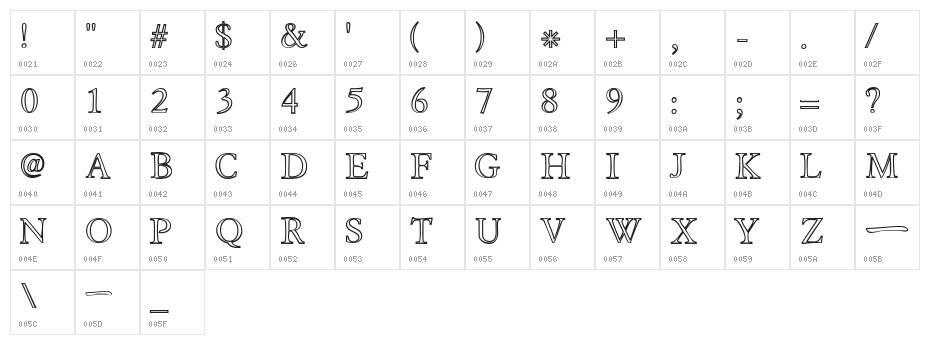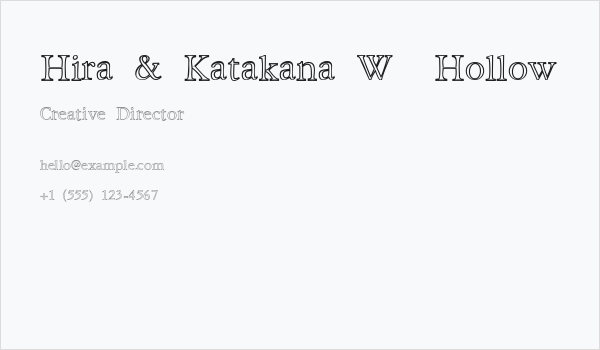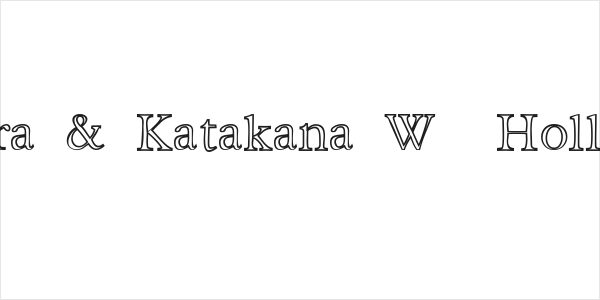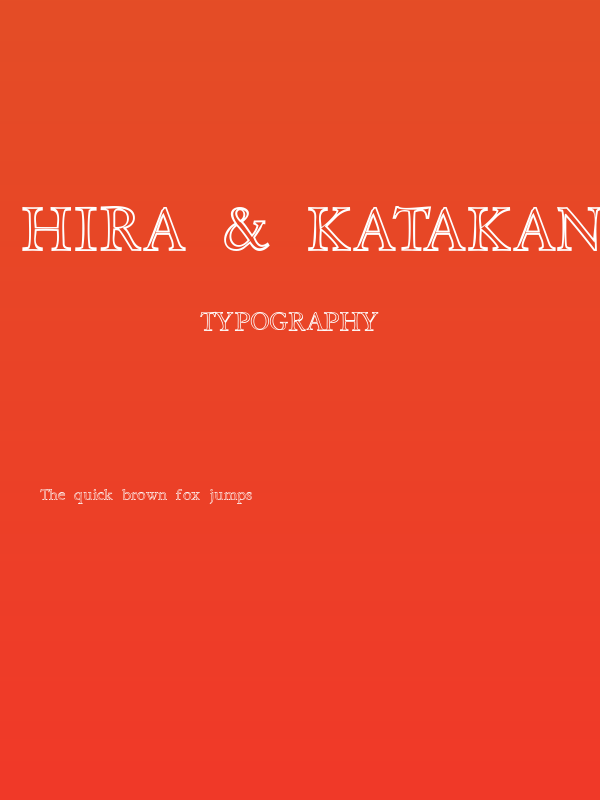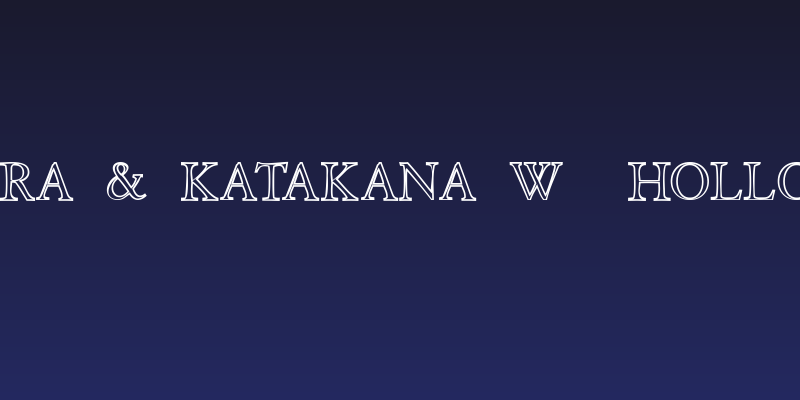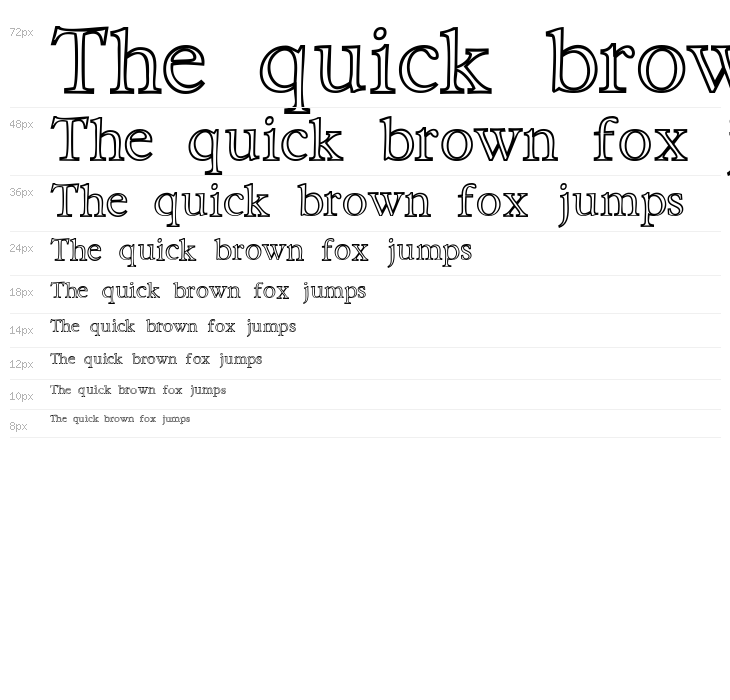
Hira & Katakana W Hollow Font
Hira & Katakana W Hollow Description
This font features a hollow, outlined design that combines traditional serif elements with a modern twist. The uppercase letters are bold and structured, providing a strong presence, while the lowercase letters maintain a consistent style with slightly softer curves. The numbers are clear and distinct, making them easily readable. Special characters are designed with the same hollow effect, ensuring uniformity across all glyphs. The overall appearance is both classic and contemporary, suitable for a variety of design needs.